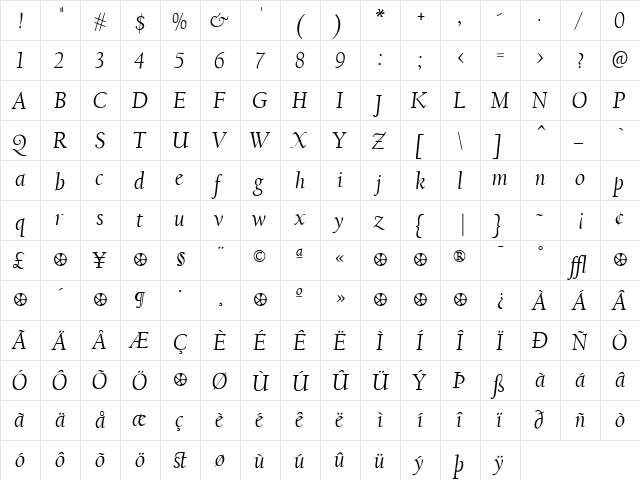
FBCalifornian Italic
Design Context for FBCalifornian Typeface
FBCalifornian offers clean, dependable letterforms without strong stylistic allegiance, making it a practical choice for designers who need flexibility. Its italic angle brings a sense of urgency and motion to the letterforms.
Pro Tip: Try FBCalifornian for annotation and caption copy alongside an upright companion — the contrast in angle creates a dynamic but ordered typographic system.